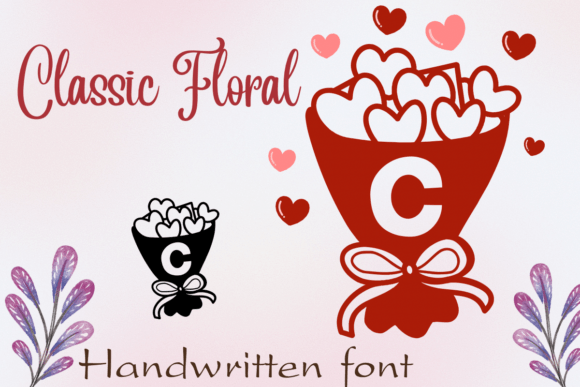
Unlock the Whimsy of Classic Floral Font
Remember that moment when you stumbled upon a quaint little bookstore, and the smell of old books and flowers transported you to a world of imagination? As you wandered through the aisles, you couldn’t help but be drawn to the beautifully designed greeting cards, each one a masterpiece of typography and artistry. That’s where the Classic Floral Font comes in – a decorative font that’s perfect for adding a touch of whimsy to your designs.
Whether you’re a seasoned designer or a crafty enthusiast, the Classic Floral Font is a valuable addition to your toolkit. With its elegant and intricate design, it’s ideal for creating beautiful stationery, banners, and social media posts that are sure to stand out. And the best part? You can use it for anything from taking notes to making personalized gifts, making it a versatile font that’s perfect for any creative project.
- Unique Characteristics: The font features intricate floral patterns, with delicate lines and subtle textures that evoke a sense of elegance and sophistication.
Designer Review: Classic Floral Font
Overall, I think the Classic Floral Font has its charm, but it’s not without its flaws. Let’s dive into what works well and what doesn’t.
- Unique aesthetic: The Classic Floral Font boasts a distinctive, vintage vibe that’s perfect for projects that need a touch of elegance and sophistication.
- Legibility: Despite its intricate design, the font is surprisingly easy to read, making it suitable for a wide range of applications.
- Customization: The font offers a decent number of customization options, allowing designers to tweak the look to suit their needs.
- Lack of consistency: The font’s irregularities can make it challenging to achieve perfect consistency across different sizes and styles.
In conclusion, the Classic Floral Font is a solid choice for designers looking for a unique, elegant font. However, its limitations should be taken into consideration, especially for projects with strict requirements. With some careful planning and attention to detail, this font can be a great addition to any design portfolio.
Use Classic Floral Font in combination with pastel colors, floral patterns, and lace textures to create a romantic and whimsical design. Experiment with different font sizes and styles to add visual interest. Consider pairing Classic Floral Font with other decorative fonts to create a unique look.
Classic Floral Font is commonly used for:
- Wedding invitations and decorations
- Floral-themed posters and social media graphics
- Decorative greeting cards and gift tags